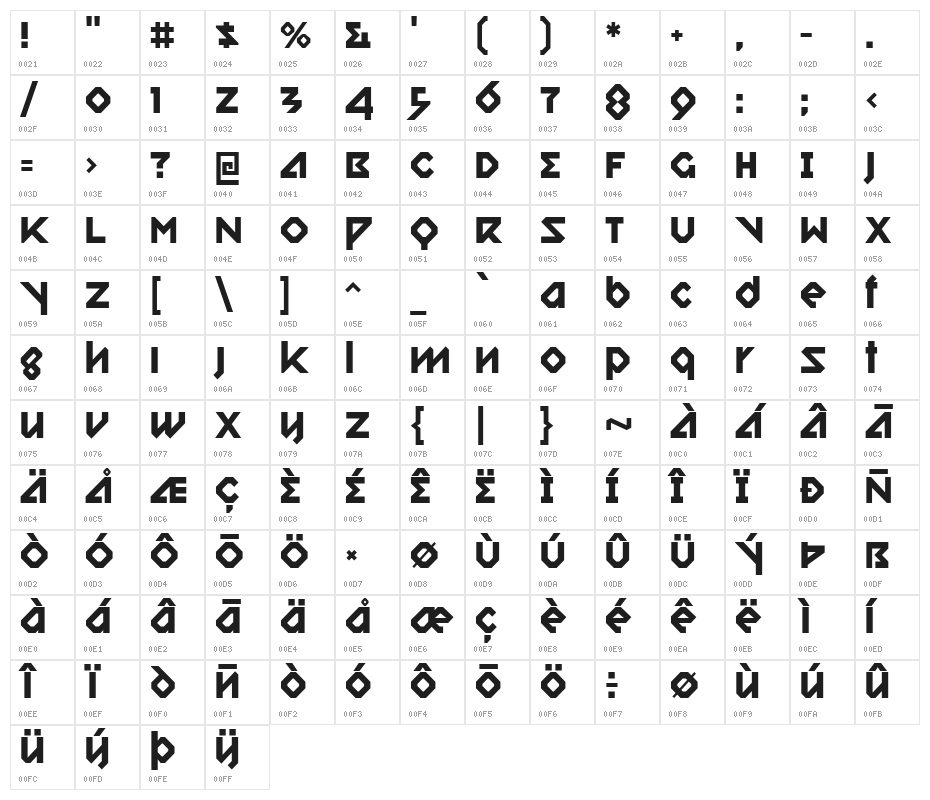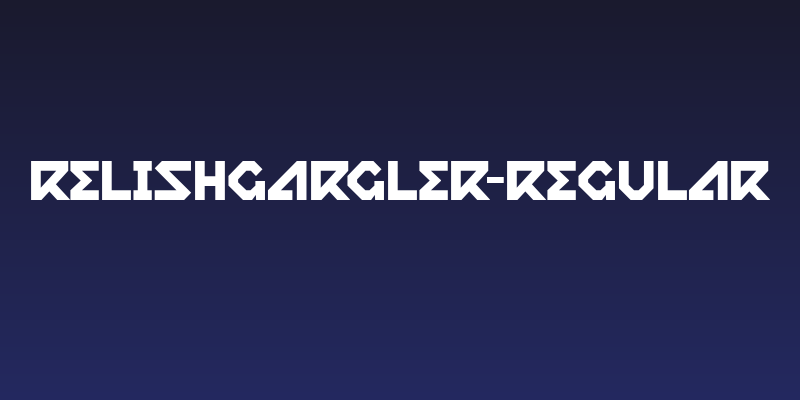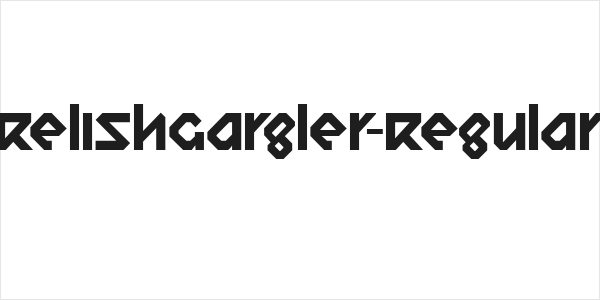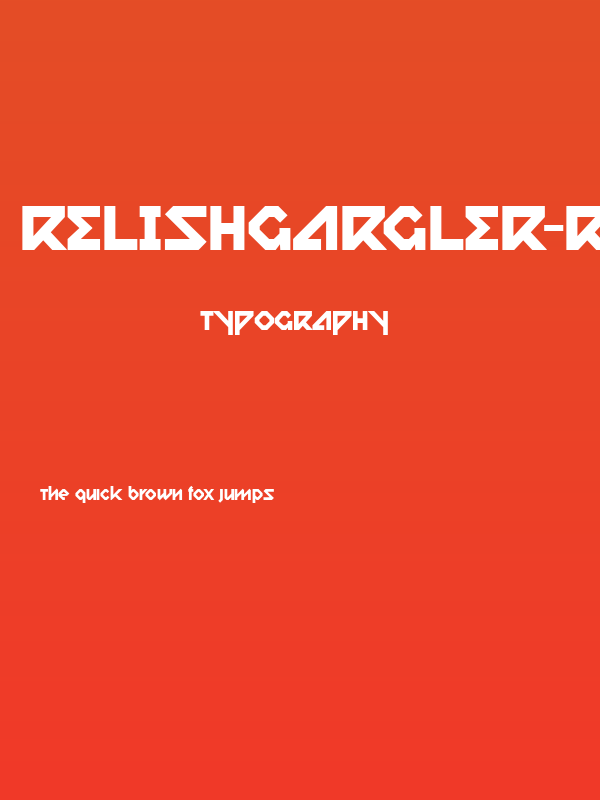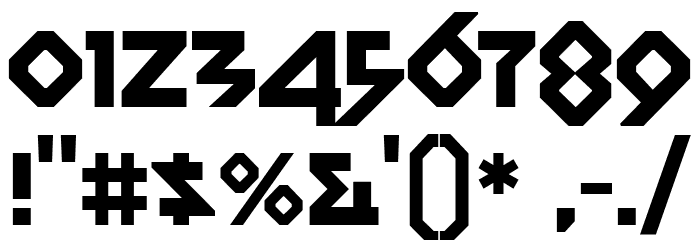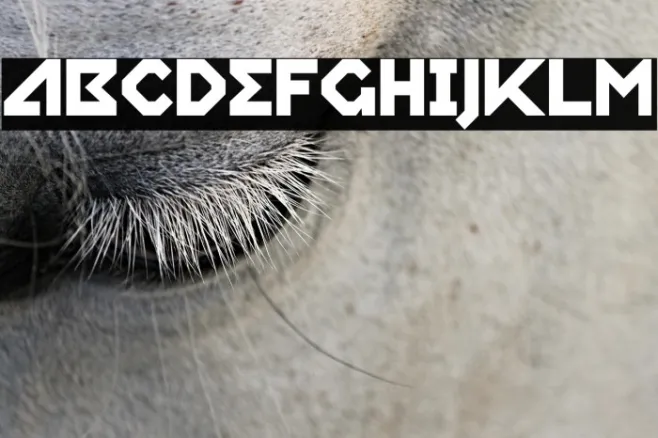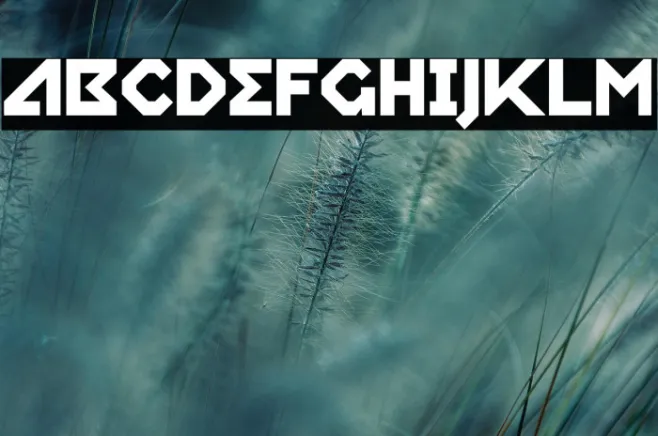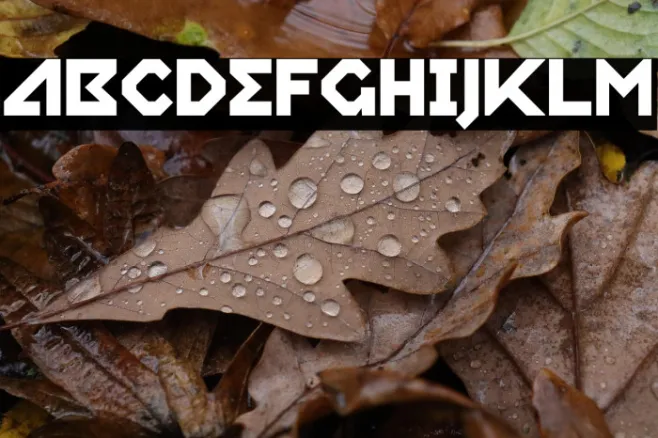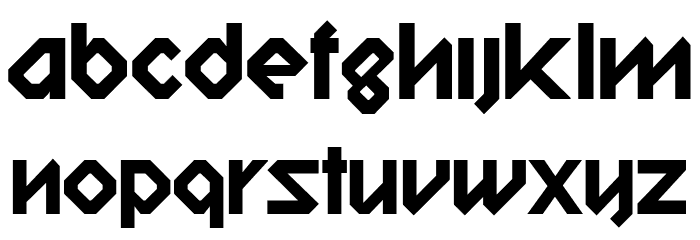
RelishGargler-Regular Font
RelishGargler-Regular Description
This font features a bold, geometric design with sharp angles and a futuristic aesthetic. The characters are constructed with thick strokes and angular edges, creating a sense of strength and modernity. The uppercase and lowercase letters maintain a consistent style, with the uppercase being more pronounced. Numbers and special characters follow the same angular theme, ensuring uniformity across all glyphs. The font's unique style makes it stand out, suitable for projects that require a bold and striking visual impact.
| Proposed Projects | Ideal for branding, posters, video game graphics, and sci-fi themed designs. |